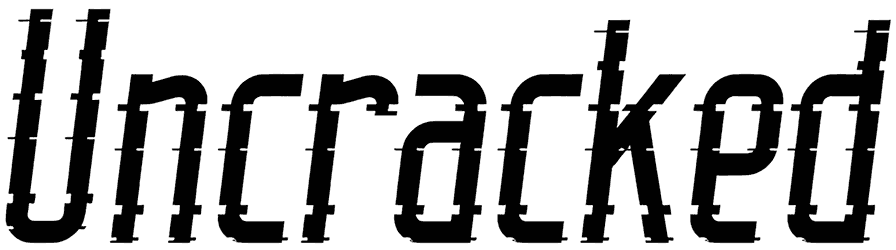
Uncracked Font
A glitch font, such as Uncracked, can cement your credential as a brave graphic artist who easily leaves the safe zone and designs unique artwork like billboards, sci-fi movie posters, video game brochures, book covers,…
A glitch font, such as Uncracked, can cement your credential as a brave graphic artist who easily leaves the safe zone and designs unique artwork like billboards, sci-fi movie posters, video game brochures, book covers, or social media posts. Due to its eccentric style, it can bring a feeling of eeriness, mirage, risk-taking, or imbalance to your work.
Uncracked is a detailed glitch style font, ideal for gaming, music and movie posters or other graphics.